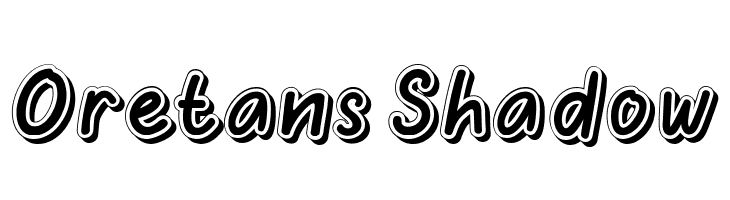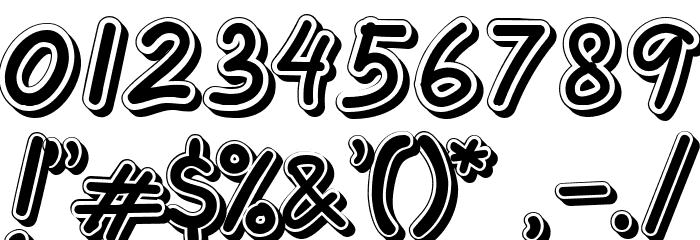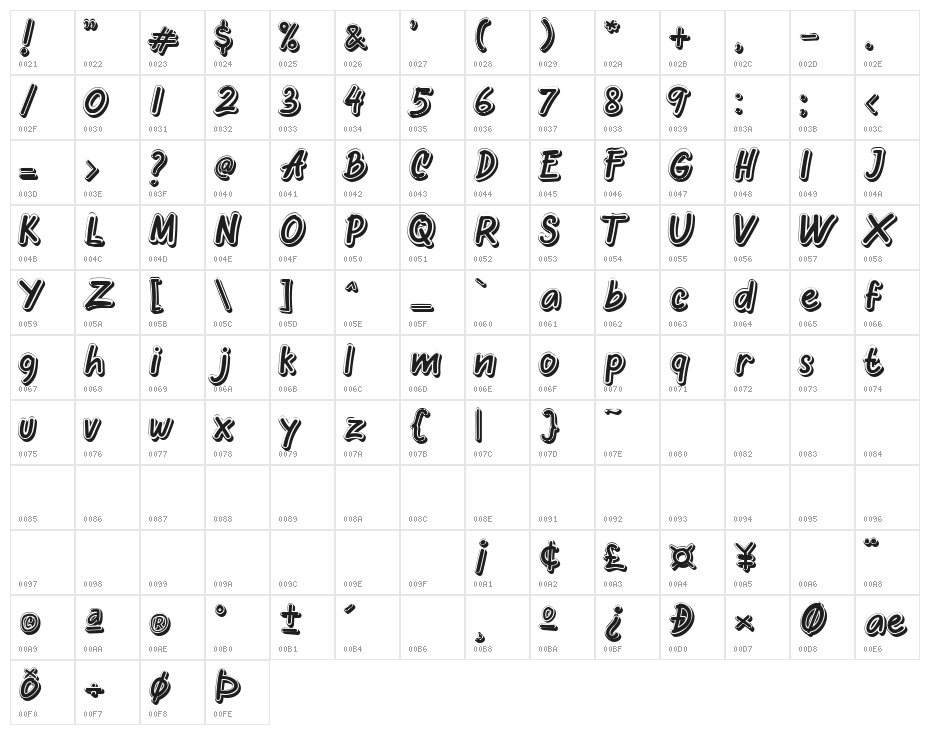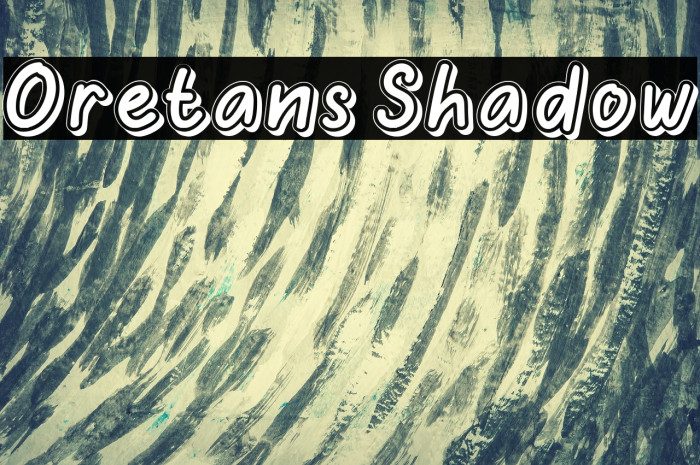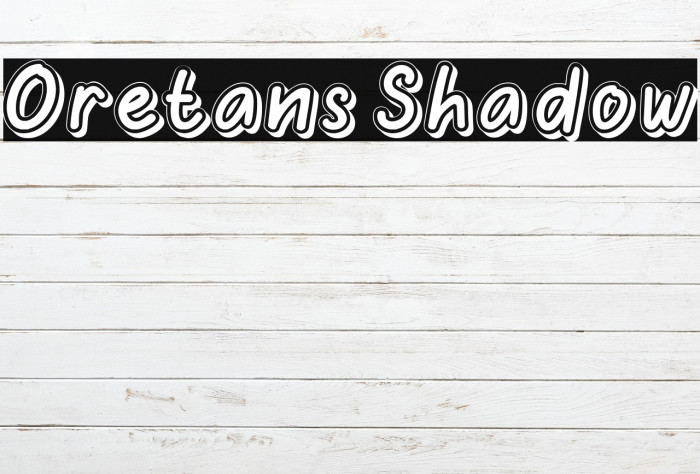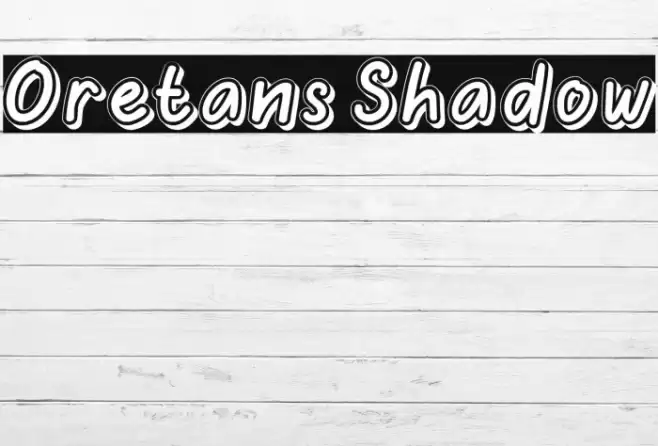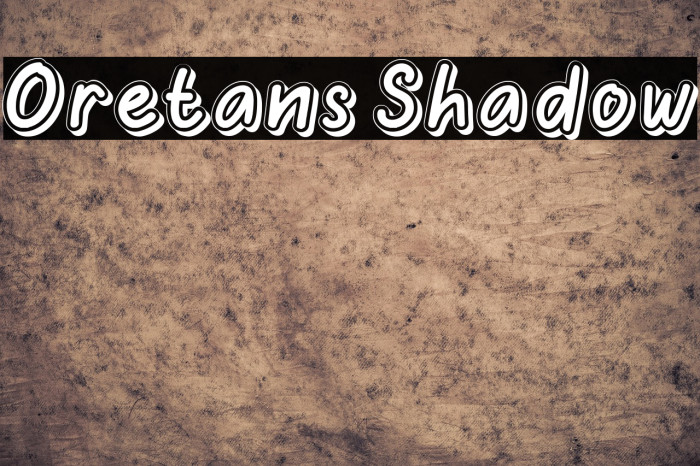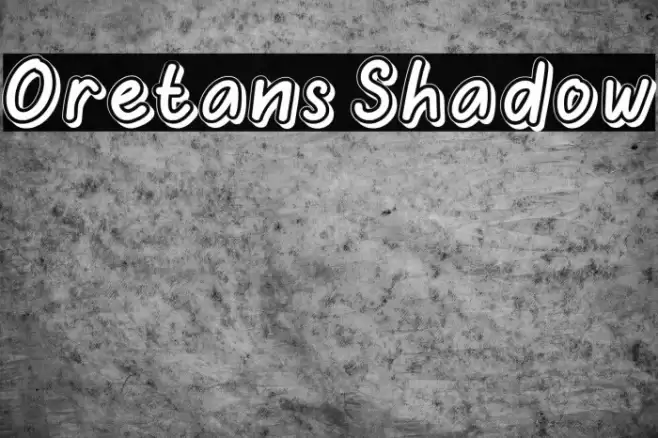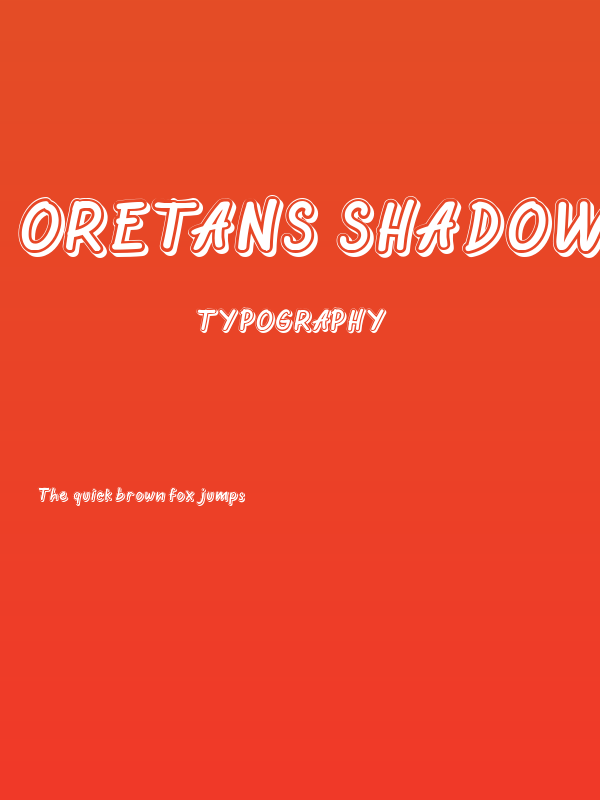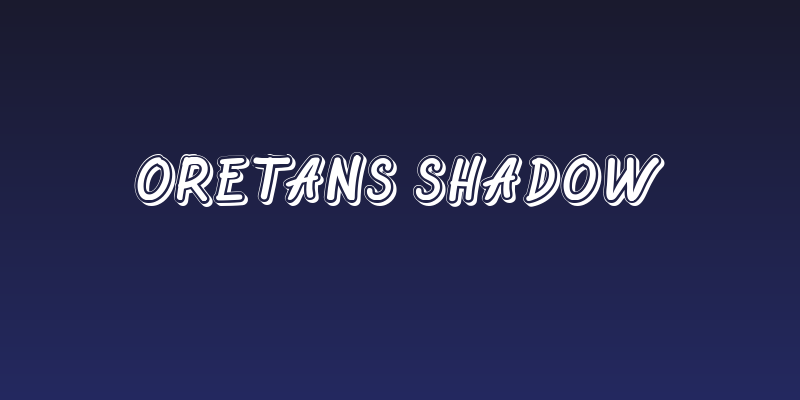
Oretans Shadow Font
Oretans Shadow Description
This font features a bold and playful design with a distinct shadow effect that gives it a three-dimensional appearance. The characters are rounded and have a handwritten style, making them appear friendly and approachable. The uppercase and lowercase letters maintain a consistent style, with the shadow adding depth and a sense of movement. The numerals and special characters are designed to match the playful, bold aesthetic, ensuring a cohesive look across all text elements. This font is ideal for projects that require a fun and engaging visual impact.
| Overall Style | Playful, Modern |
| Proposed Projects | Ideal for children's books, playful branding, posters, and social media graphics. |